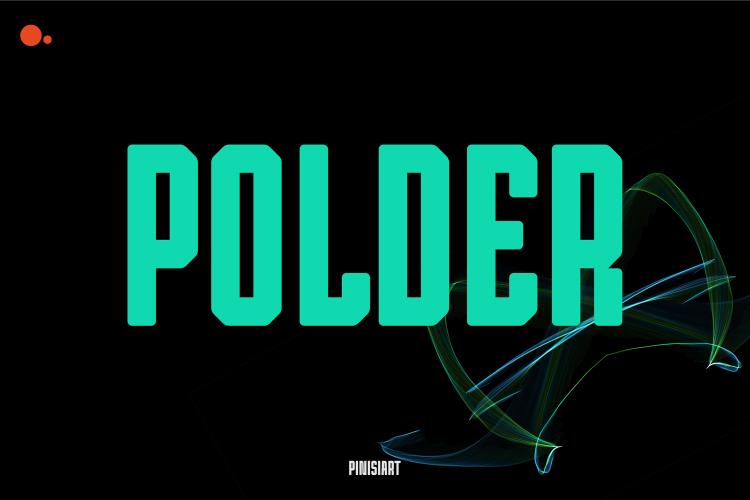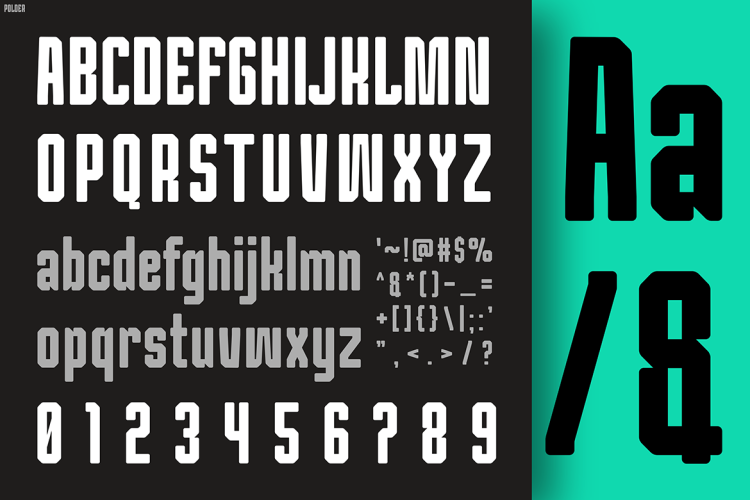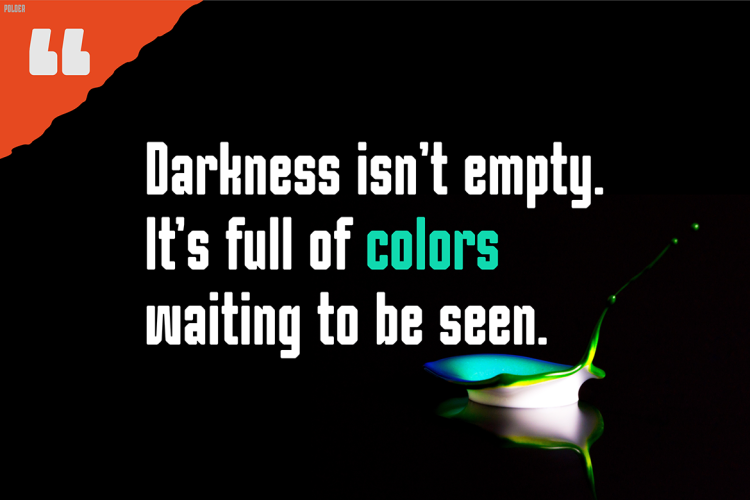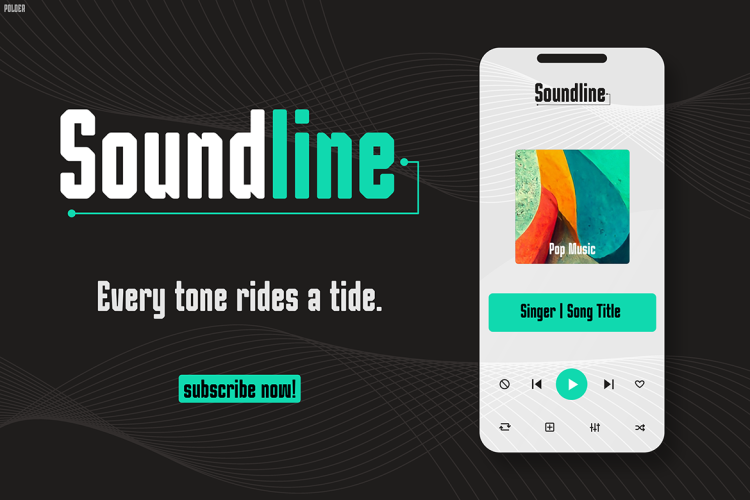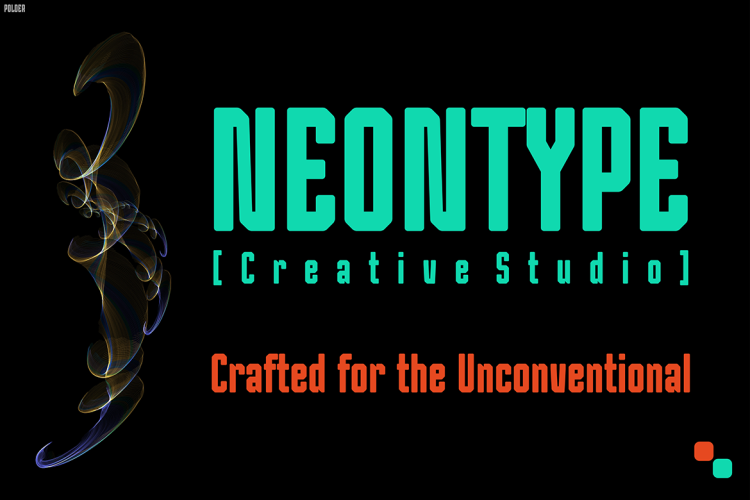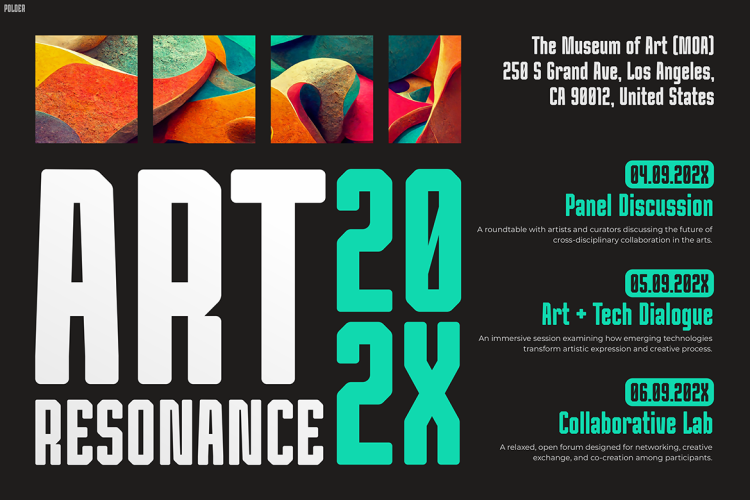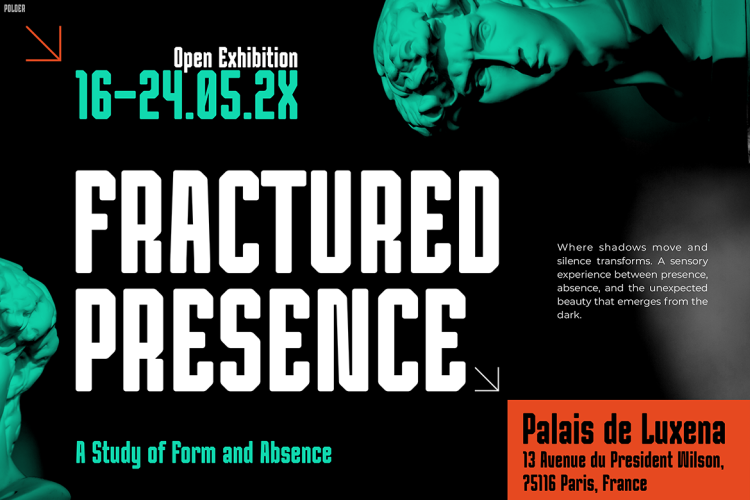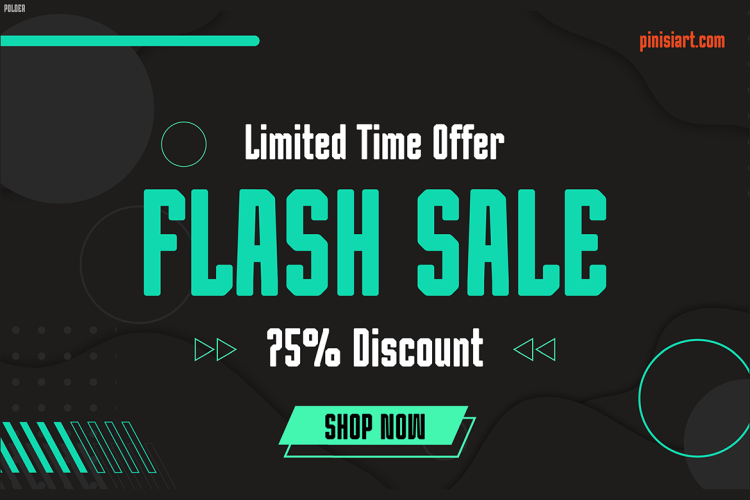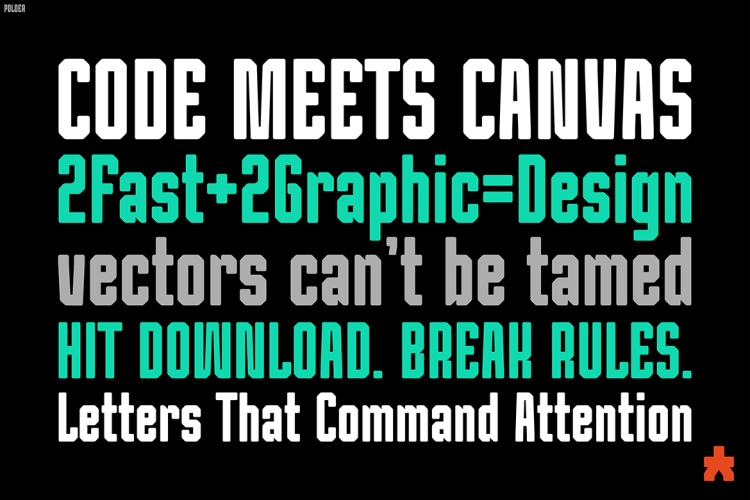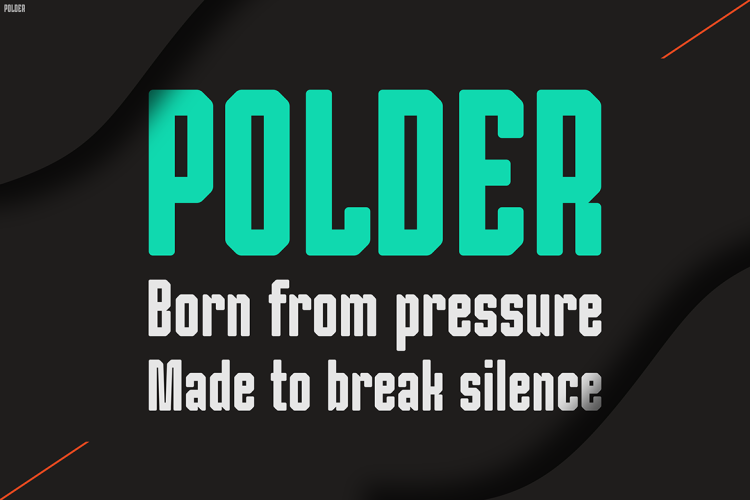
Instagram Font POLDER โ Bold, Expressive & Built for Impactful Visuals
Instagram Font POLDER grabs attention the moment it appears. With sharp geometry and intense contrast, it brings a bold, brutalist energy to every layout. It doesnโt just decorate your designโit leads it. The fontโs aesthetic is modern, structured, and unapologetically loud, making it perfect for high-impact visual content on platforms like Instagram.
Moreover, POLDER thrives where clarity and power are essential. Designers can use it to create punchy headlines, bold quotes, or campaign visuals that stop the scroll. Its thick strokes and angular curves create rhythm and consistency across layouts. As a result, your message remains clearโeven in fast-moving feeds or crowded interfaces.
Unlike many trendy fonts, POLDER balances character and usability. It delivers attitude while staying clean and legible. For example, it blends perfectly into neon-style visuals, dark mode UIs, or minimalist poster designs. In addition, the font includes multilingual support and stylistic alternates, allowing creators to explore diverse ideas without compromise, POLDER is more than an eye-catcherโitโs a functional toolkit for dynamic communication.
Who Is It For?
POLDER suits designers, digital creators, and social media marketers who want their message to stand tall. If you run Instagram campaigns, promote music events, or design visual-first brandsโthis font matches your style. Its energy fits everything from tech startups to flash sales.
Moreover, artists, DJs, and visual storytellers can use POLDER to express edge, emotion, and impact. Whether you’re building an art zine, a video thumbnail, or an exhibition poster, this font brings a visual punch. It speaks before the words doโand keeps audiences looking.
Make Your Message Loud and Clear
Let your visuals rise above the noise. Choose Instagram Font POLDER to give every project strength, precision, and unforgettable personality. This is more than a typefaceโitโs a design weapon for creators who lead, not follow.